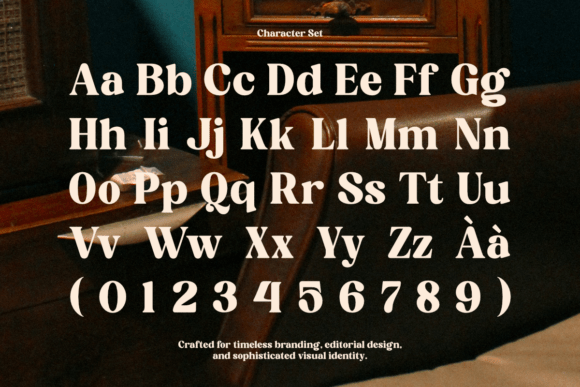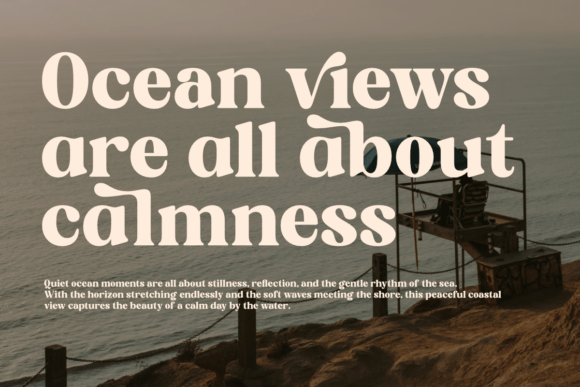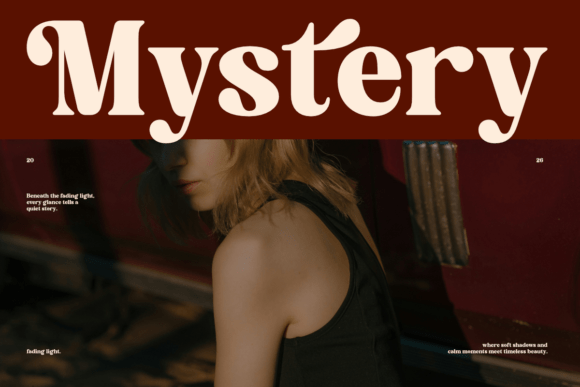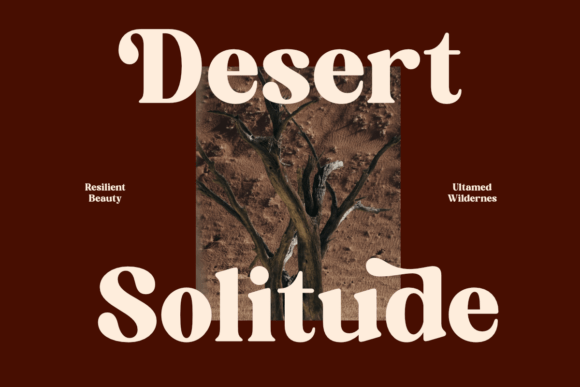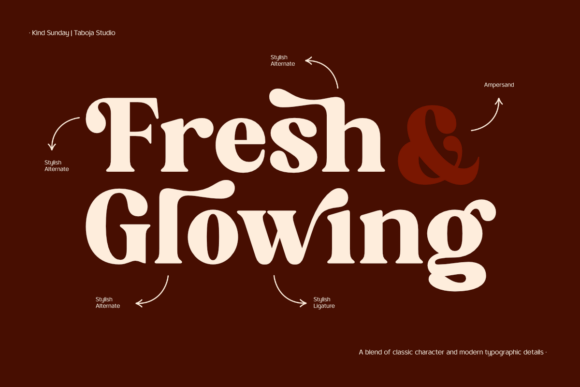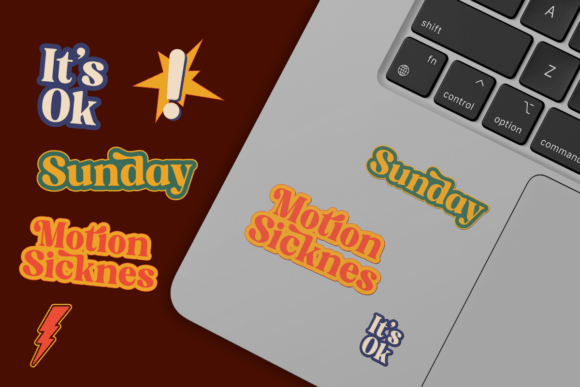
Introduction to Kind Sunday Font
Kind Suday is an elegant retro serif typeface crafted to bring timeless charm and refined personality into modern design.
Created for high-visibility use, Kind Sunday shines beautifully in headlines, editorial layouts, branding, posters, packaging, and lifestyle visuals Its stylish forms and balanced proportions offer strong visual appeal while maintaining readability at larger sizes.
Key Features of Kind Sunday Font
Why Choose Kind Sunday Font?